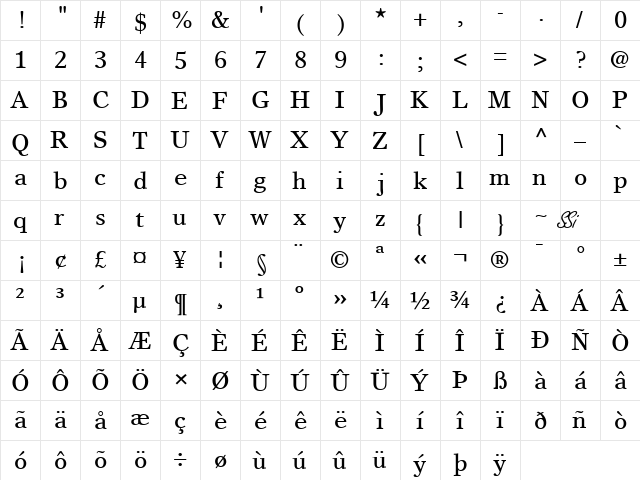
Greco Europa SSi Regular
Design Context for Greco Europa SSi Typeface
Greco Europa SSi offers clean, dependable letterforms without strong stylistic allegiance, making it a practical choice for designers who need flexibility.
Pro Tip: Pair Greco Europa SSi with a font of contrasting weight or personality to build a more expressive typographic hierarchy.